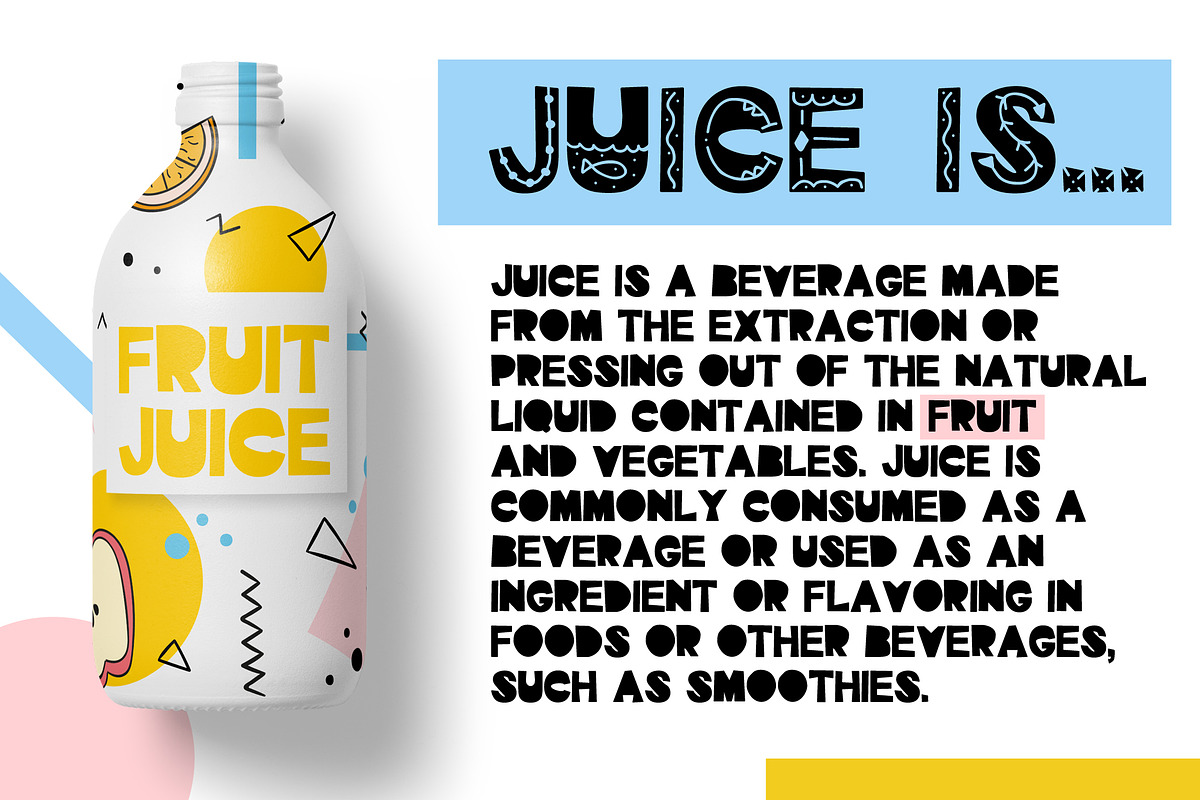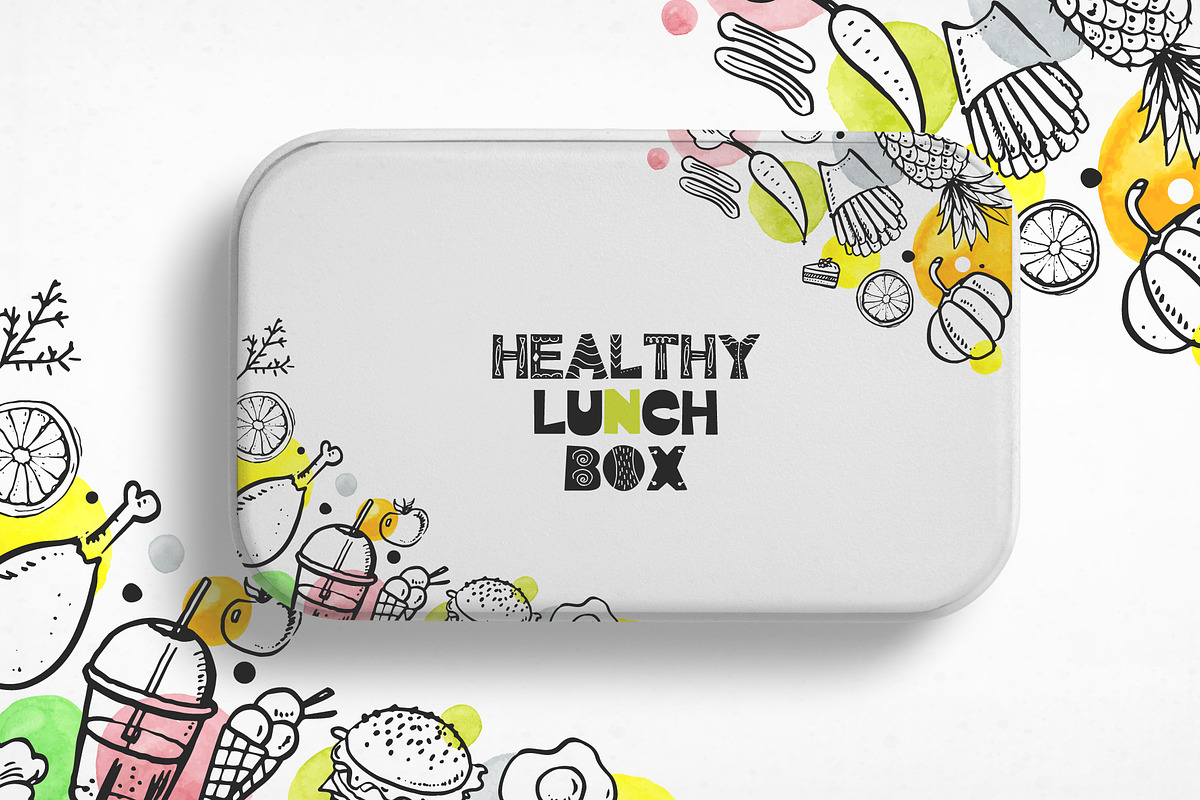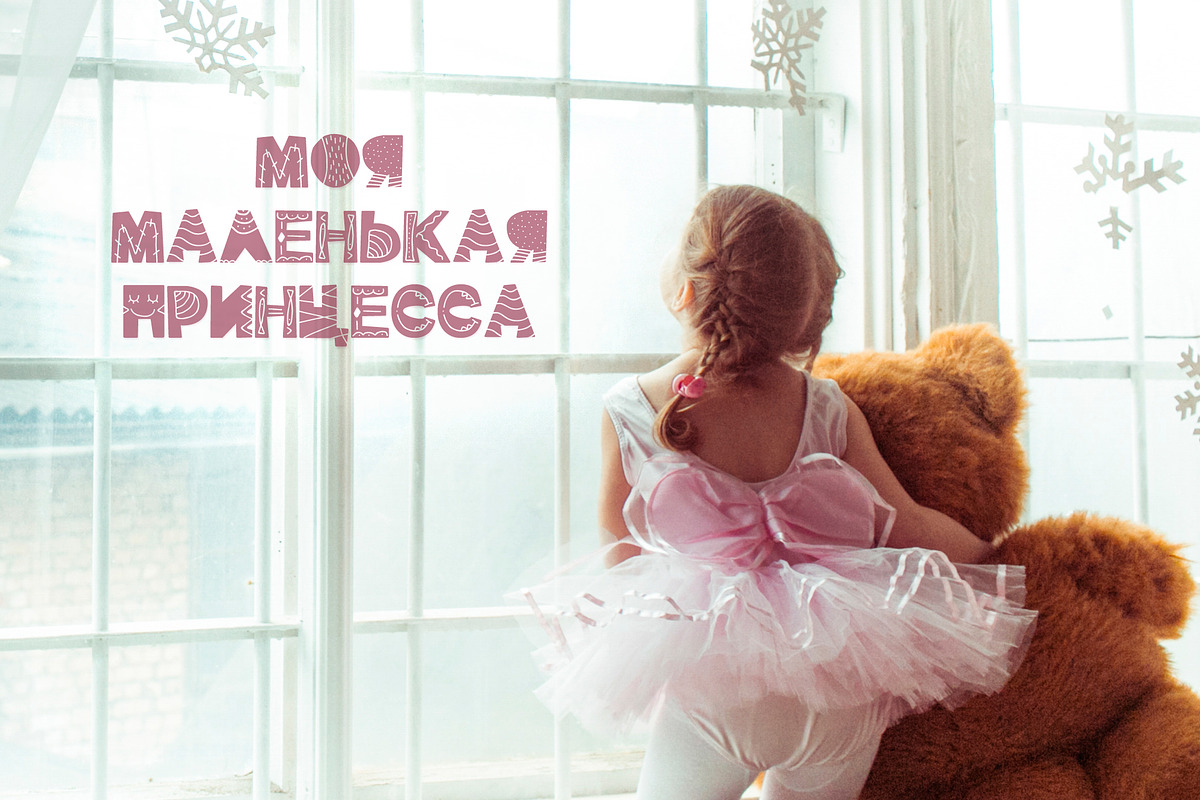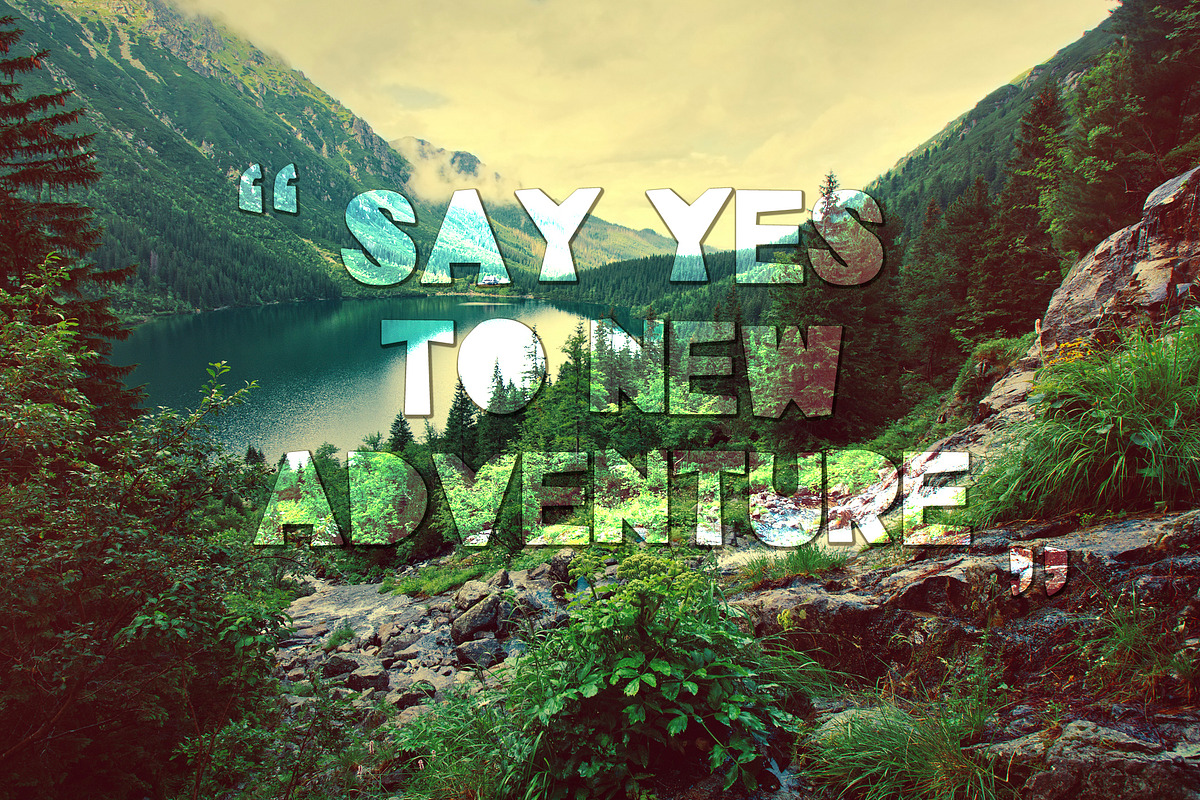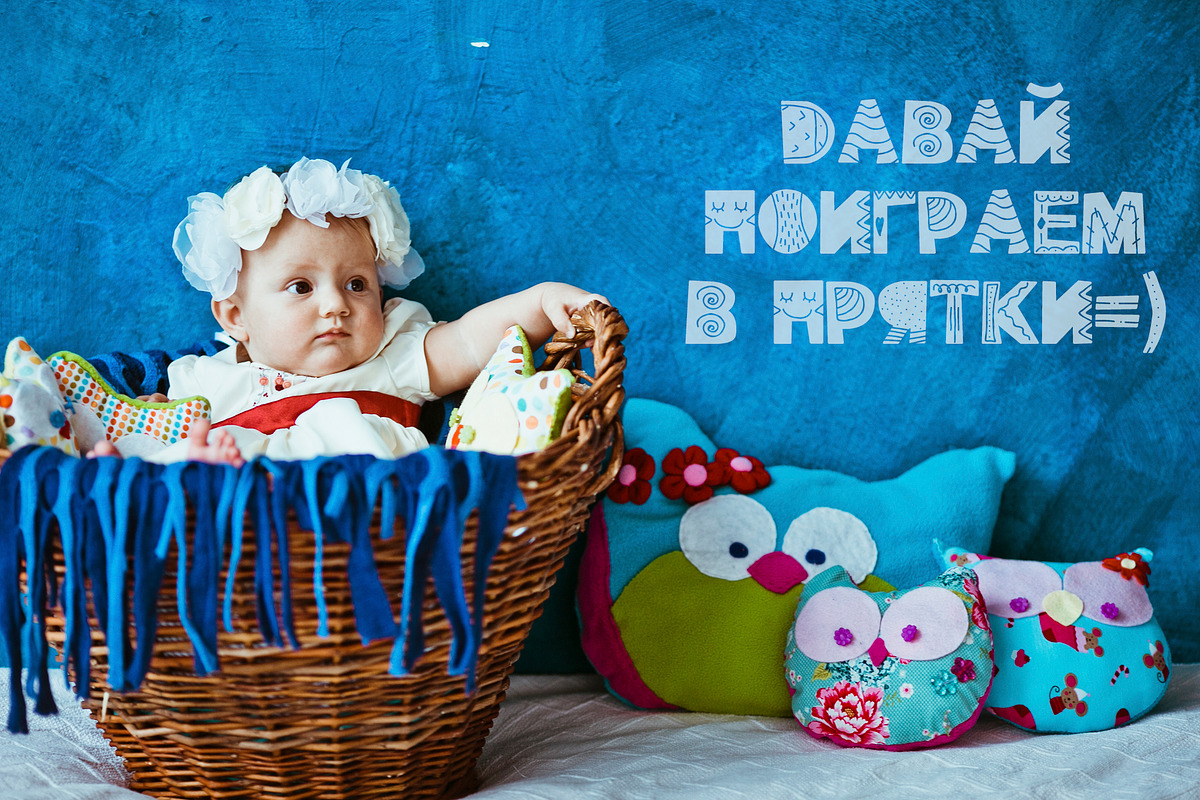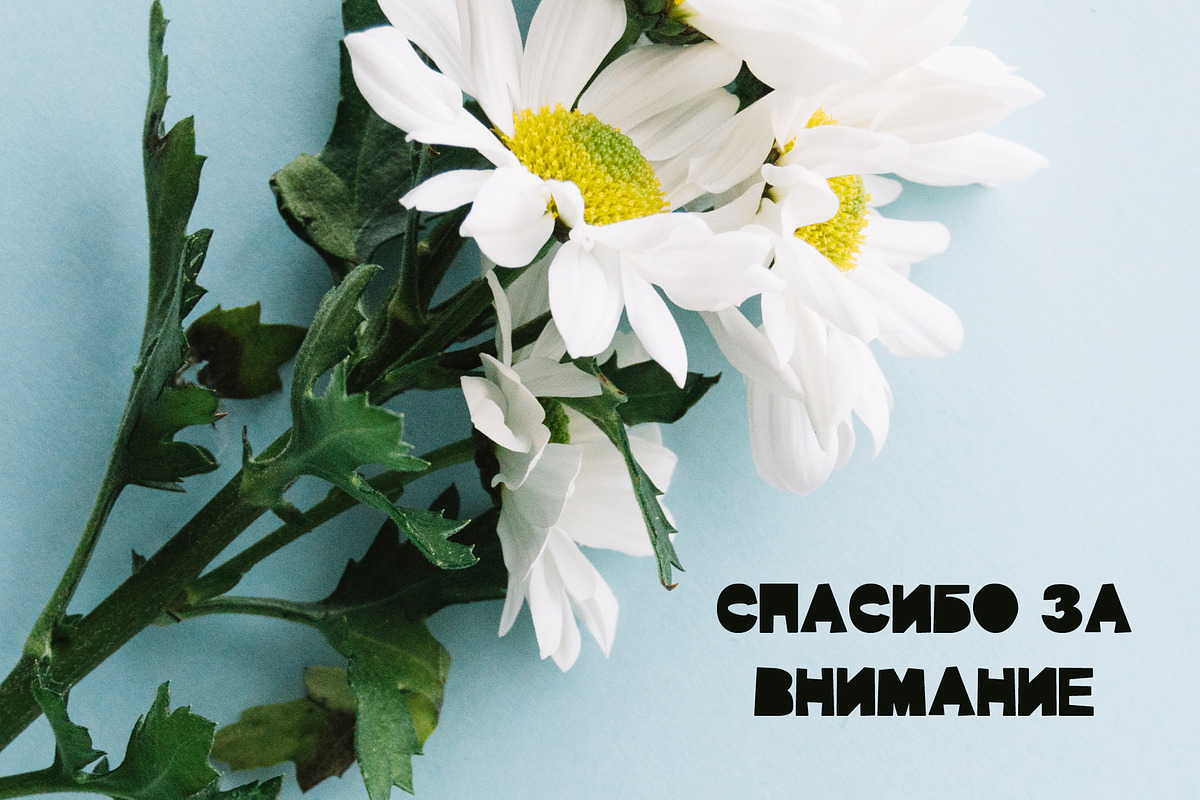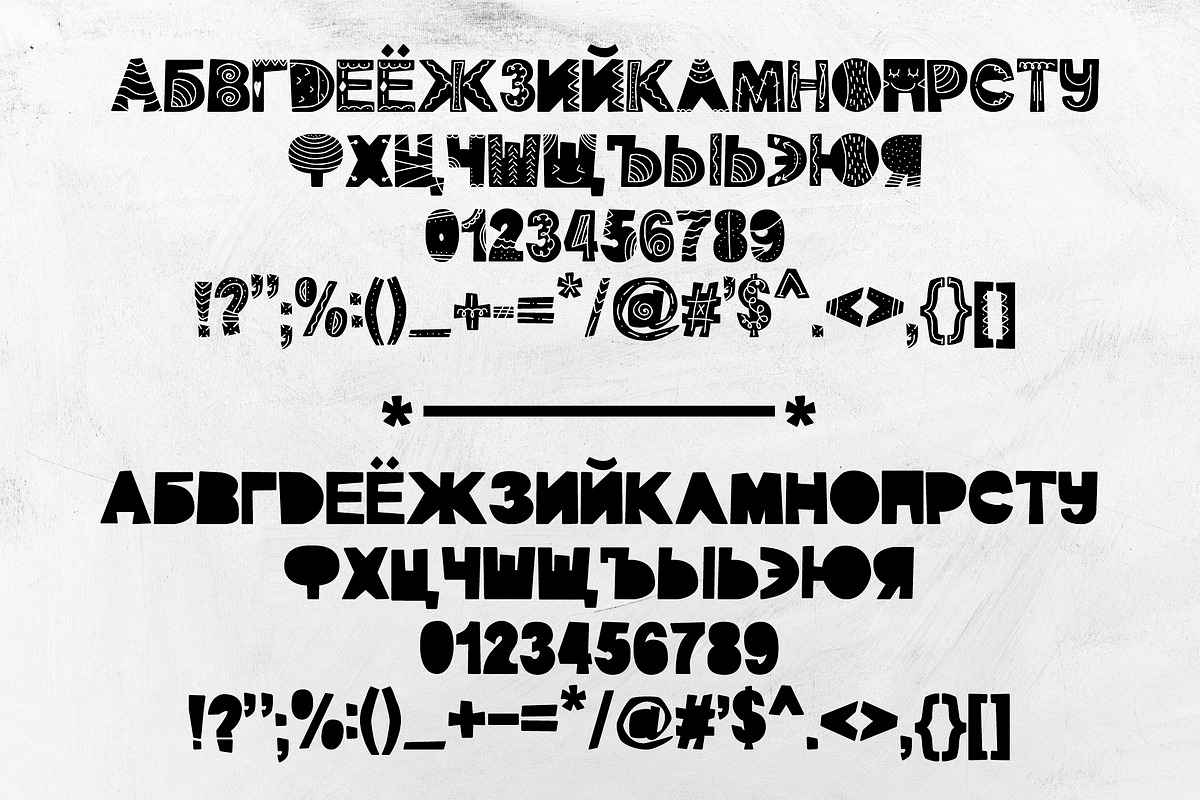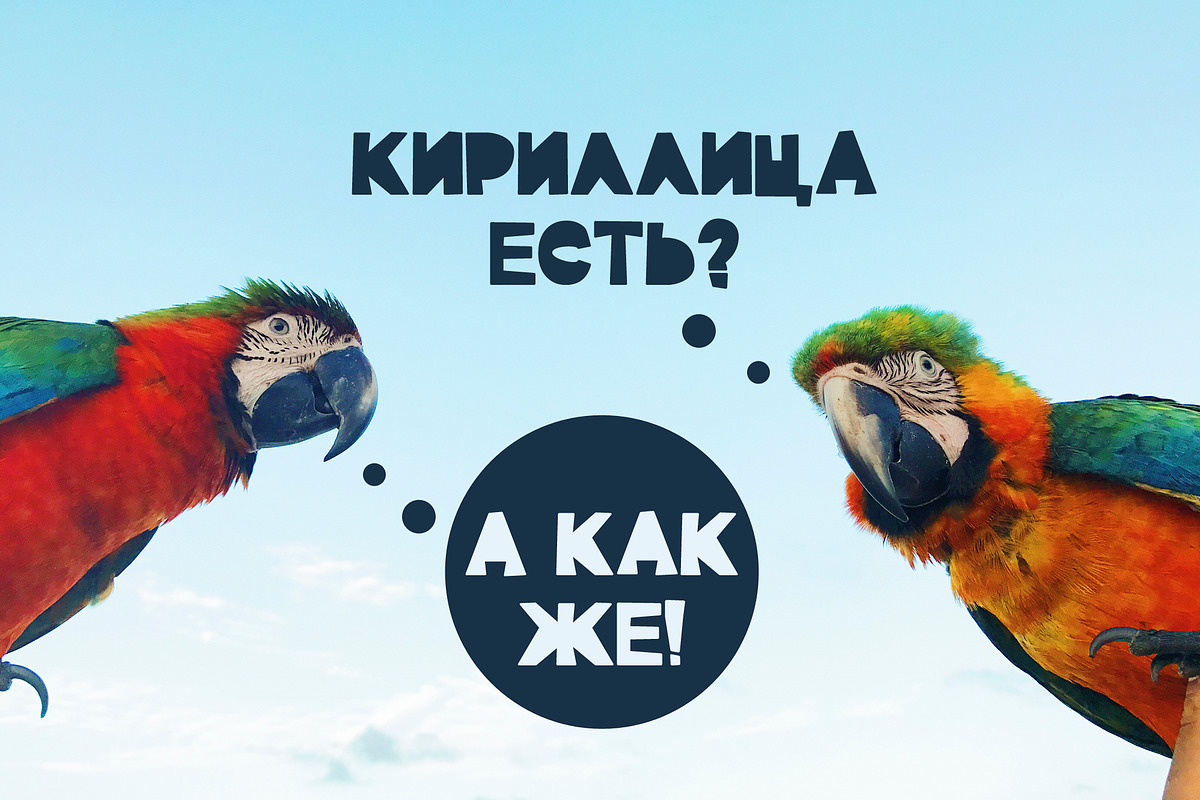
Font Jonny (latin & cyrillic)
Font Jonny was created by me for creative and extraordinary people who like to create everything new and interesting. The product consists of 2 types of fonts one with decorative elements Jonny Decor and the second usual Jonny Black without decorative elements. All fonts support Latin and Cyrillic.